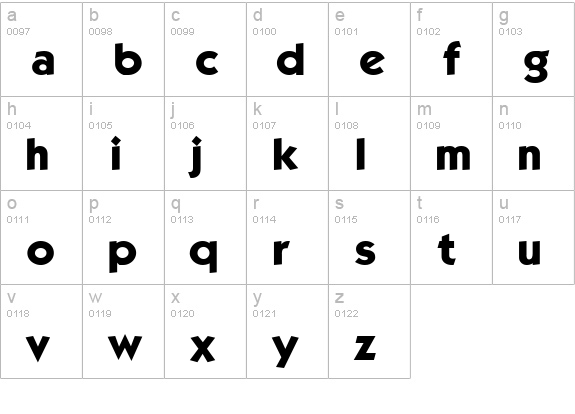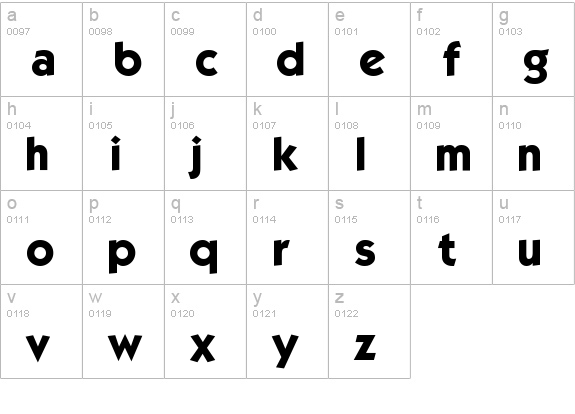
Kabel Book Font Details
Kabel Book is a comfortable, highly readable variant in the Kabel typeface family \xE2\x80\x94 well suited to long-form body text, articles, and editorial content.
Kabel Book is a stunning and versatile font that combines classic elegance with modern simplicity. It exudes a sense of sophistication and professionalism that is perfect for a wide range of design projects. With its clean lines and balanced proportions, Kabel Book offers a timeless aesthetic that can elevate any text or headline. Whether you're creating a logo, designing a website, or crafting a printed piece, this font will make a lasting impression. One of the most appealing aspects of Kabel Book is that it is free to download. Yes, you read that right - this incredible font is available to everyone at no cost. You can easily access it on FontsMarket.com, a reliable and trusted source for high-quality fonts. By making Kabel Book freely available, the creators have made it accessible to a wide audience, regardless of their budget or design needs. This font is a true gift to the design community, allowing professionals, students, and enthusiasts alike to enhance their projects with a touch of elegance and refinement. The versatility of Kabel Book is another reason why it has become a favorite among designers. Its clean and legible design makes it suitable for both body text and headlines, ensuring that it can be used across a variety of mediums and platforms. Whether you're designing for print or digital, this font will deliver exceptional results. Kabel Book is a typeface that effortlessly combines form and function. Its timeless beauty and ease of use make it a valuable addition to any designer's toolkit. So why wait? Head over to FontsMarket.com and download Kabel Book for free today. It's time to take your designs to the next level with this exceptional font.